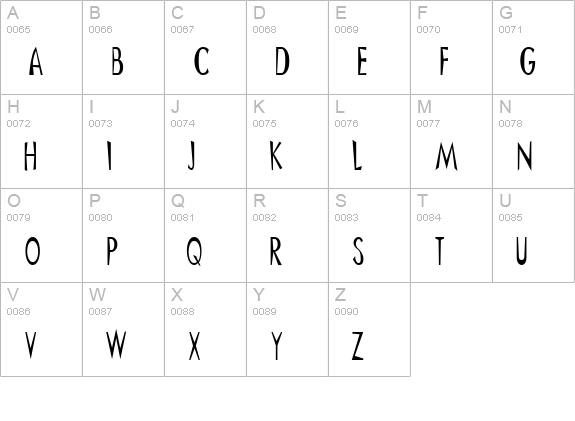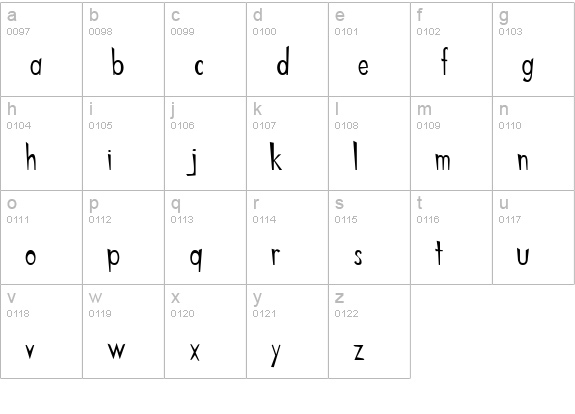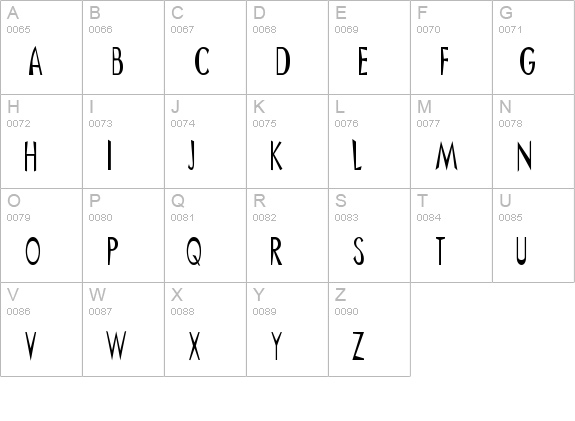
Chinese Regular Font Details
Chinese Regular is the standard, neutral variant in the Chinese typeface family \xE2\x80\x94 well suited to general body text, paragraphs, and standard typographic work.
Chinese Regular font is a stunning typeface that exudes elegance and sophistication. With its clean lines and modern appeal, this font is perfect for a wide range of design projects, from branding to editorial design. The characters are beautifully crafted, capturing the essence of traditional Chinese calligraphy while maintaining a contemporary feel. What makes Chinese Regular font even more appealing is that it is available for free download at FontsMarket.com. This means that you can enjoy using this exquisite font in your projects without any cost. Whether you're working on a poster, logo, or website design, Chinese Regular font will add a touch of class and style to your work. Don't miss out on this opportunity to enhance your designs with this fantastic font - download it for free today at FontsMarket.com!